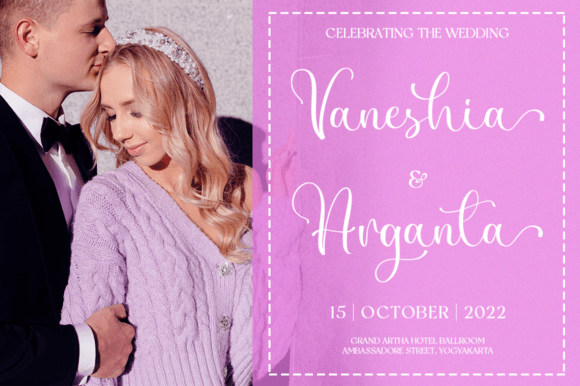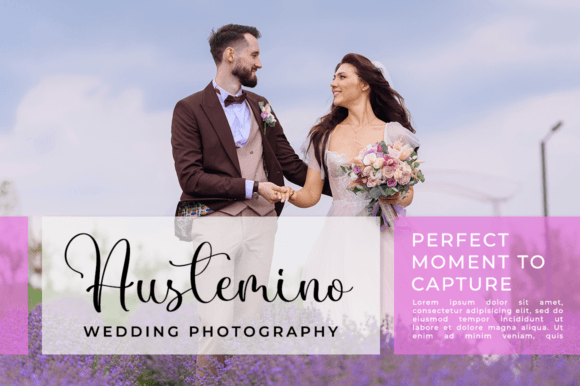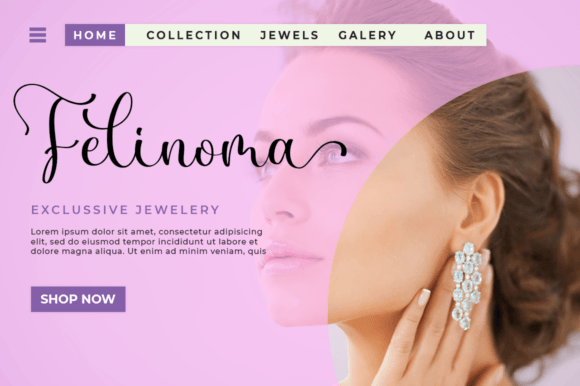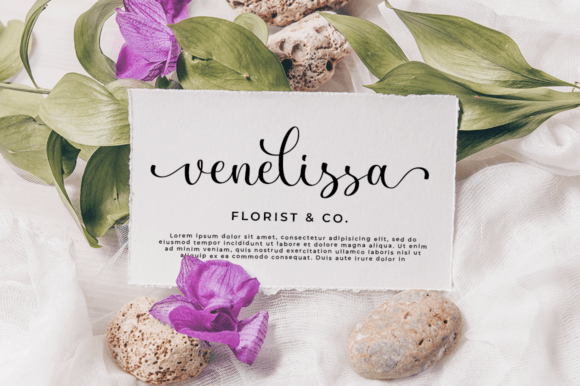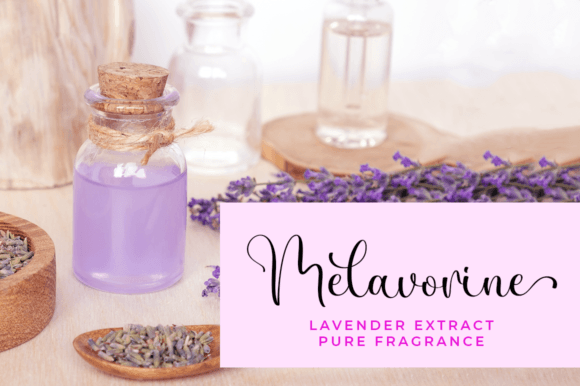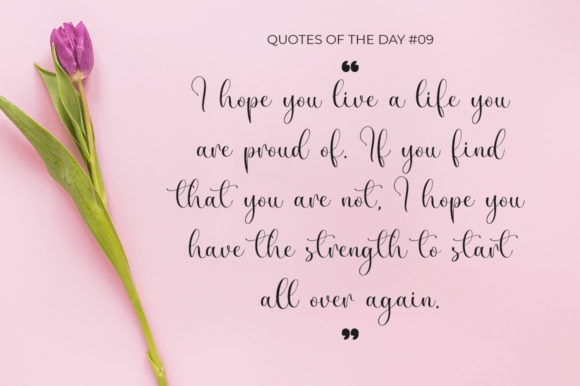
The Perfect Blend of Elegance and Distinction
As a designer, there’s nothing quite like the rush of discovering a new font that captures the essence of your vision. It’s that moment when the perfect script comes to life, transporting you to a world of endless possibilities. For those seeking a font that exudes sophistication and charm, look no further than the Dignetta Font.
This elegant handwritten font is designed to elevate your designs, whether it’s a wedding invitation, a heartfelt thank you card, or a bold logo. Its beauty lies in its uniqueness, making it the perfect choice for those who want to add a customized touch to their work. With its PUA encoding, accessing the font’s extensive glyphs and swashes is a breeze, giving you the freedom to unleash your creativity.
Dignetta Font Key Features
- Unique Characteristics: Dignetta Font features a distinctive, elegant script design with intricate details and flowing connections between letters.
- Font Width and Height: The font’s x-height is moderate, allowing for good readability, while its ascenders and descenders provide a sense of elegance and sophistication.
Dignetta Font Review
I recently had the chance to work with the Dignetta font, and I must say it’s a unique and interesting choice. ✨ The elegant, handwritten feel is perfect for creative projects that need a touch of sophistication. The font’s flowing lines and subtle flourishes make it ideal for invitations, wedding stationery, and other special occasion materials.
One of the things that really stood out to me about the Dignetta font is its high level of customization. ✨ You can adjust the size, color, and even the spacing between letters to create a truly one-of-a-kind look. This level of control is perfect for designers who want to push the boundaries of what’s possible with typography.
- ⚠️ Limited character set: While the Dignetta font is perfect for special occasion materials, it may not be the best choice for everyday text. The limited character set can make it difficult to work with for longer pieces of text.
- ⚠️ Not suitable for small text: Due to the font’s elaborate design, it may not be the best choice for small text. The intricate details can become lost when scaled down.
Overall, I was impressed with the Dignetta font. While it may have some limitations, its unique charm and high level of customization make it a great choice for designers who want to add a touch of elegance to their projects.
Common Use Cases for Dignetta Font
Dignetta font is particularly well-suited for creative projects, such as:
- Artistic typography projects